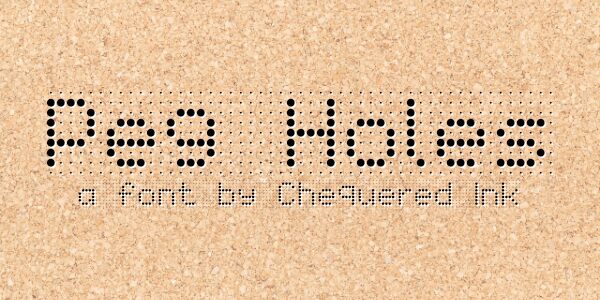
Peg Holes Regular
Peg Holes, designed by Chequered Ink, is a captivating display font with a digital twist.
Its semi-light weight adds elegance to your creative projects, making it perfect for futuristic branding and technology-focused designs. With its unique style, Peg Holes brings a sense of modernity and sophistication to logos, posters, and website headers. Whether you are designing for a tech startup or an innovative product launch, this eye-catching typeface will effortlessly elevate your visuals and leave a lasting impression on your audience.